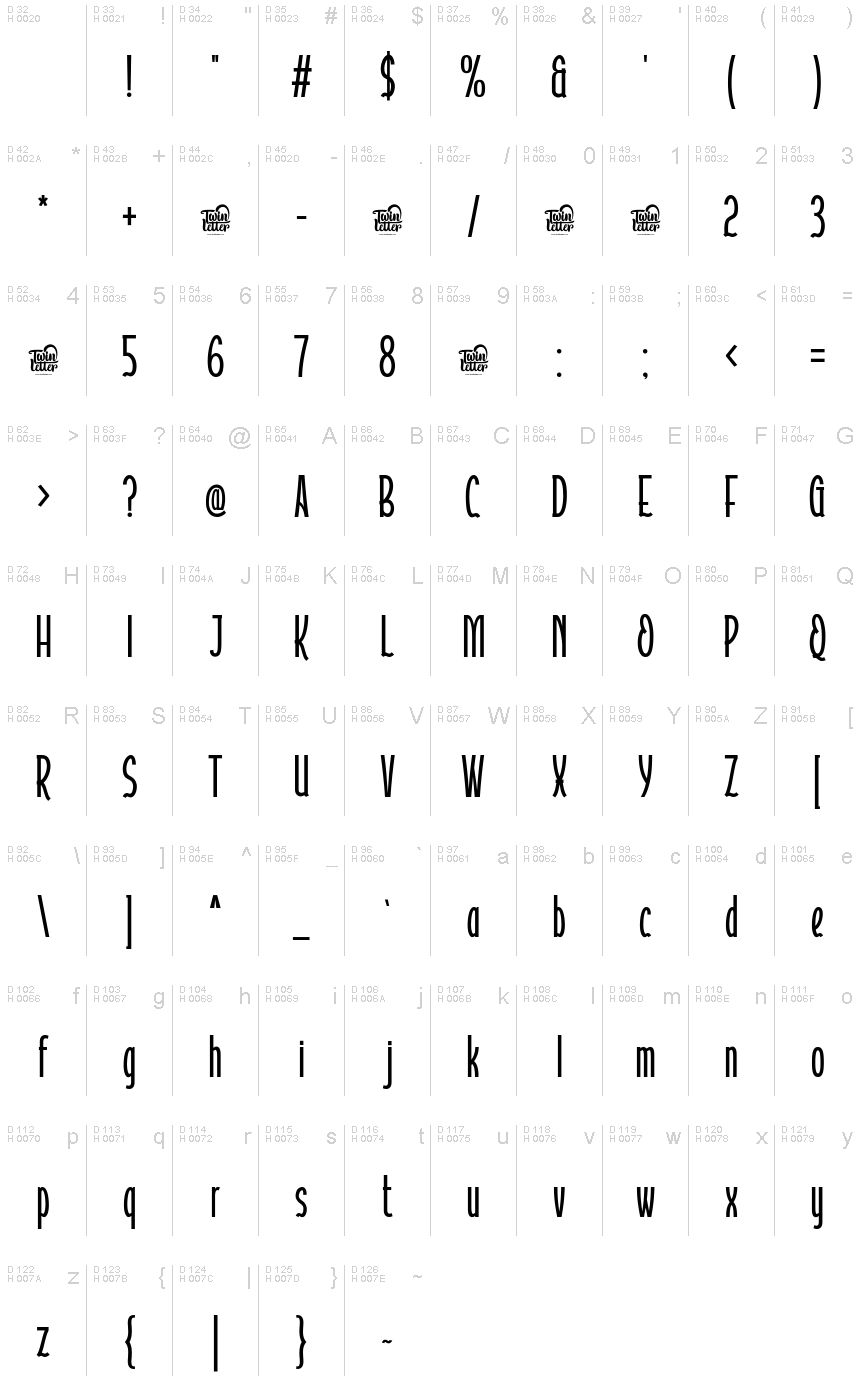
ATOVERZtrial Regular
Atoverz font, designed by Twinletter, embodies a captivating retro aesthetic that effortlessly draws the eye. Its striking condensed design lends an air of sophistication and modernity while maintaining a nostalgic charm. The bold characters stand out with a unique flair, capturing attention in any setting.
Visually, Atoverz communicates confidence and clarity, making it ideal for promotional materials or branding efforts that seek to evoke a sense of vintage allure. Its distinctive style invites creativity, whether used in headlines, posters, or product labels.
Compatible with both digital and print applications, Atoverz integrates seamlessly into contemporary design projects while honoring classic influences—making it an excellent choice for anyone looking to blend the old with the new.